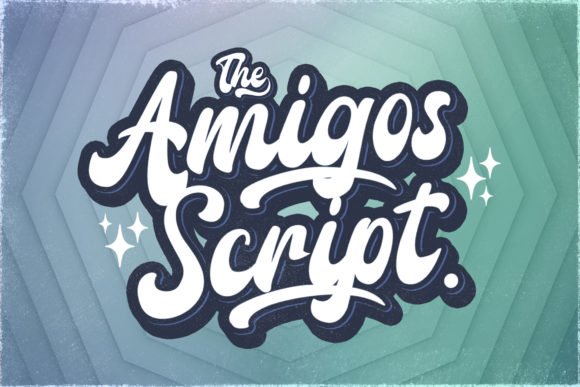
The Ultimate Guide to Amigos Font: Elevate Your Designs with this Vintage Script
What Makes Amigos Font So Special?
Amigos Font is a curved, rounded, and uniquely vintage script font that’s perfect for branding. Its bold and eye-catching style makes it ideal for adding a touch of personality to your designs. Whether you’re working on a logo, business card, or social media post, Amigos Font is sure to make your ideas come alive!
What I Love About Amigos Font ✨
- 💥 Strong and bold script style that’s perfect for making a statement
- 🎨 Unique vintage aesthetic that adds a touch of personality to your designs
- 👍 Highly legible, even at smaller font sizes
While Amigos Font is an amazing font, there are a few things to keep in mind:
- 🤔 Some users may find the font a bit too bold for certain design projects
- ⚠️ Limited availability of certain characters or symbols
The Story Behind Amigos Font
Amigos Font was designed with the goal of creating a unique, vintage-inspired script font that’s perfect for branding and creative projects. The designer drew inspiration from classic scripts and modern typography, resulting in a font that’s both nostalgic and fresh.
Q: Is Amigos Font suitable for body text?
A: While Amigos Font is highly legible, it’s best suited for headlines, titles, and short paragraphs. For longer body text, you may want to consider a more traditional serif or sans-serif font.